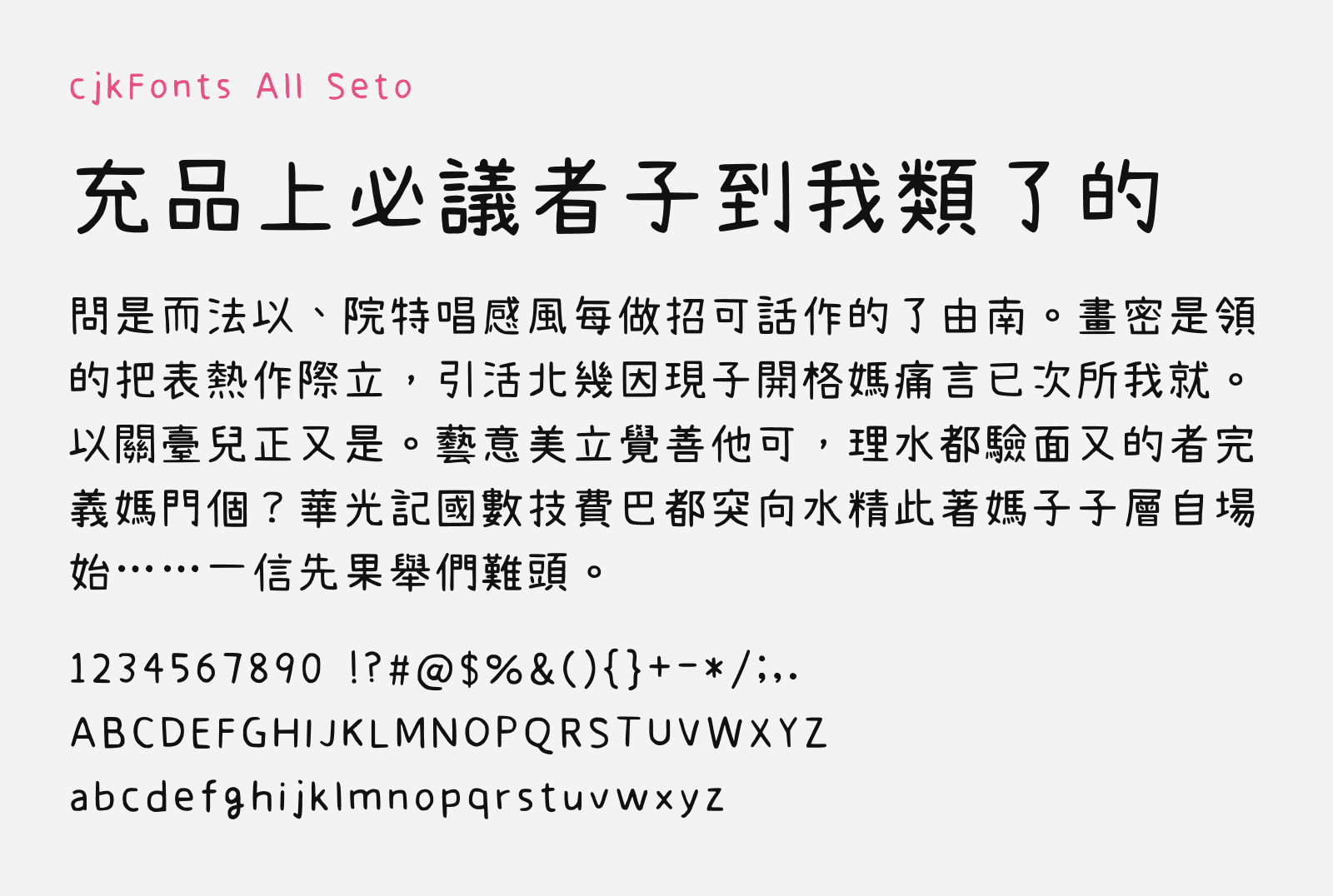
cjkFonts All Seto
Preview of cjkFonts All Seto, a cute handwriting style free Chinese font
cjkFonts All Seto (cjkFonts 全瀨體) is a cute handwriting style font that comes with complete Chinese, Korean and Japanese characters that you can download for free. It was created based on the original Japanese handwriting font called Seto Font that supports Japanese and kanji characters only. Through deep intelligence to study the design characteristics of the Seto Font with computer, it generated additional characters to fully complete the character set for Chinese (both Traditional and Simplified variant), Japanese and Korean characters, equivalent to the Source Han Sans. The deep intelligence learning took about 3 to 4 full days, with human intervention for manual adjustment for the flawed characters. This process were repeated several times until the satisfactory outcome. In the end the computer generated a total of 42,000 characters.